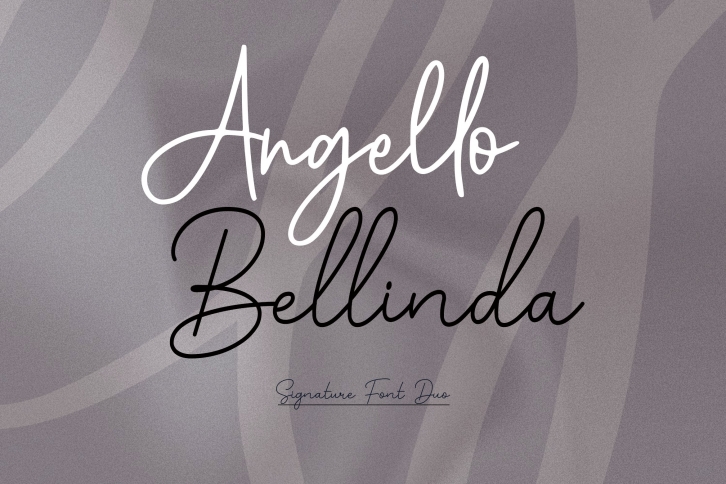
Signature Bundle is a beautiful font that was designed by flat. It's a great choice for designers and creatives who need such a font. It was released on August 18, 2022 and the file size is 14.84 MB. Signature Bundle may give a more youthful, expressive and casual look to your project. It is a very beautiful, refined, elegant, and high-quality font.